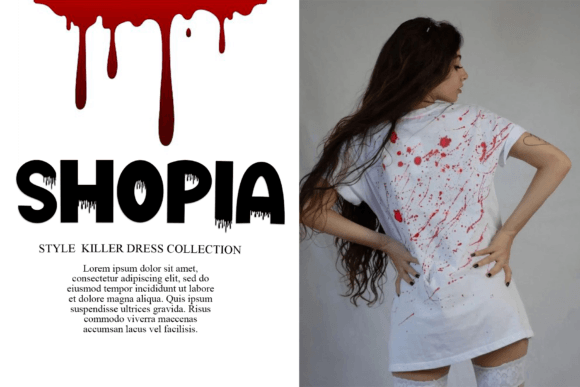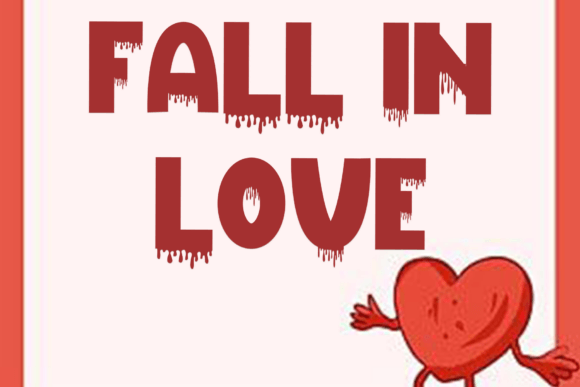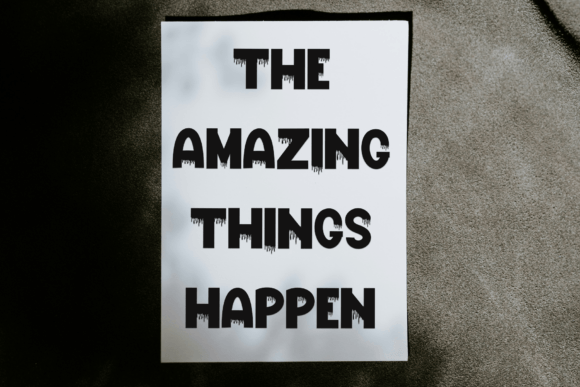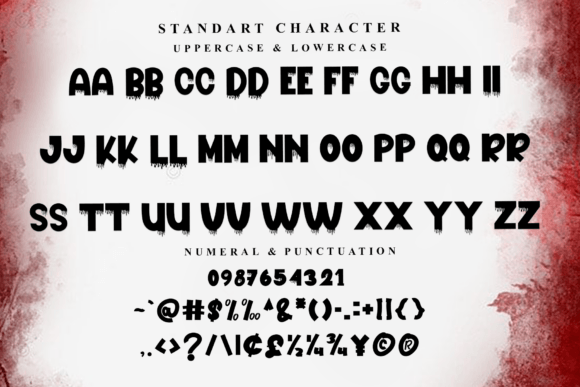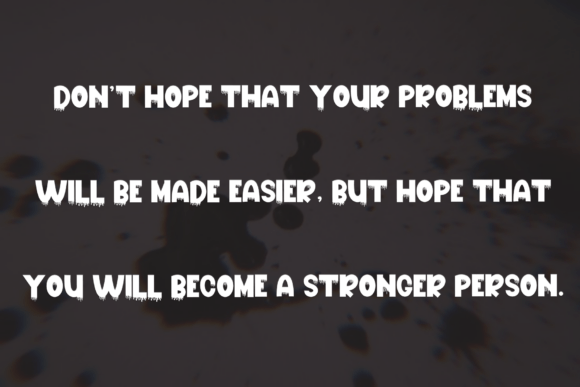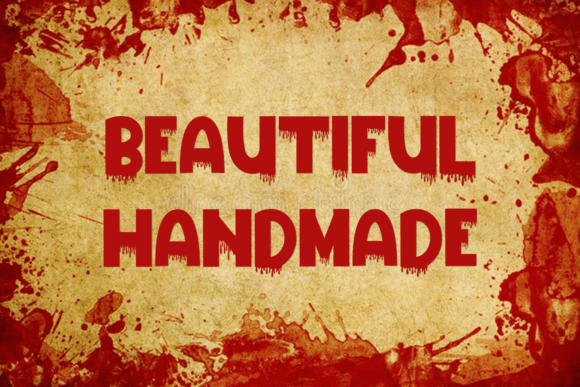
Unleash the Spooky Spirit with Blood Spooky Font
As the sun sets on a crisp autumn evening, the air is filled with the whispers of Halloween magic. It’s the perfect time to tap into your creative side and conjure up some spine-tingling designs. For many designers, this spooky season is the ultimate opportunity to let their imagination run wild and create something truly unforgettable.
One tool that can help you unleash your inner creativity is the Blood Spooky Font. This bold, eye-catching display font is designed to add a dramatic touch to your designs, complete with dripping details that will make your audience shiver with delight. Whether you’re crafting a haunting Halloween card or designing a creepy costume, Blood Spooky Font is the perfect partner in crime.
With its unique blend of spookiness and style, Blood Spooky Font is a valuable addition to any designer’s toolkit. Its versatility makes it easy to use in a variety of projects, from greeting cards to social media graphics, and its bold, eye-catching design is sure to grab attention and leave a lasting impression.
Blood Spooky Font Key Features
- Unique Characteristics: The font features a spooky and eerie design, with intricate details and textures that give it a haunting and atmospheric feel.
Blood Spooky Font Review
When I first laid eyes on the Blood Spooky Font, I was immediately drawn to its spooky and eerie vibe. ✨ The font has a unique, hand-drawn feel that’s perfect for Halloween-themed designs, horror movies, or any project that requires a touch of darkness.
- ✨ Unique and spooky vibe: The font’s design effectively conveys a sense of eeriness, making it perfect for dark-themed projects.
- ✨ Customizable: The font comes with various weights and styles, allowing designers to customize their design to fit their needs.
- ✨ Easy to read: Despite its spooky appearance, the font is surprisingly easy to read, even at smaller sizes.
- ⚠️ Limited versatility: While the font is perfect for dark-themed projects, it may not be the best choice for more lighthearted or professional designs.
- ⚠️ Distinctive style may not appeal to everyone: Some designers may find the font’s unique style too overpowering or gimmicky.
Overall, I think the Blood Spooky Font is a great addition to any designer’s toolkit. While it may not be suitable for every project, it’s perfect for those that require a touch of darkness and eeriness. With its customizable options and easy readability, this font is sure to deliver.
To get the most out of the Blood Spooky Font, use it for:
- Haunted house invitations
- Spooky season social media posts
- Creepy book covers
- Haunted-themed events and parties